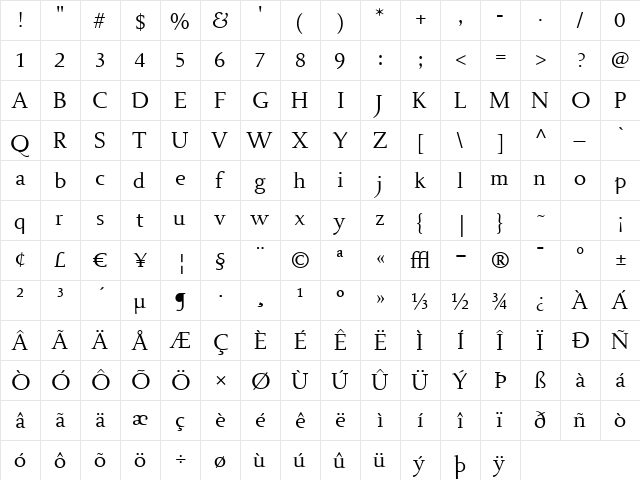
BelenRegular Regular
Design Context for BelenRegular Typeface
BelenRegular offers clean, dependable letterforms without strong stylistic allegiance, making it a practical choice for designers who need flexibility.
Pro Tip: Pair BelenRegular with a font of contrasting weight or personality to build a more expressive typographic hierarchy.